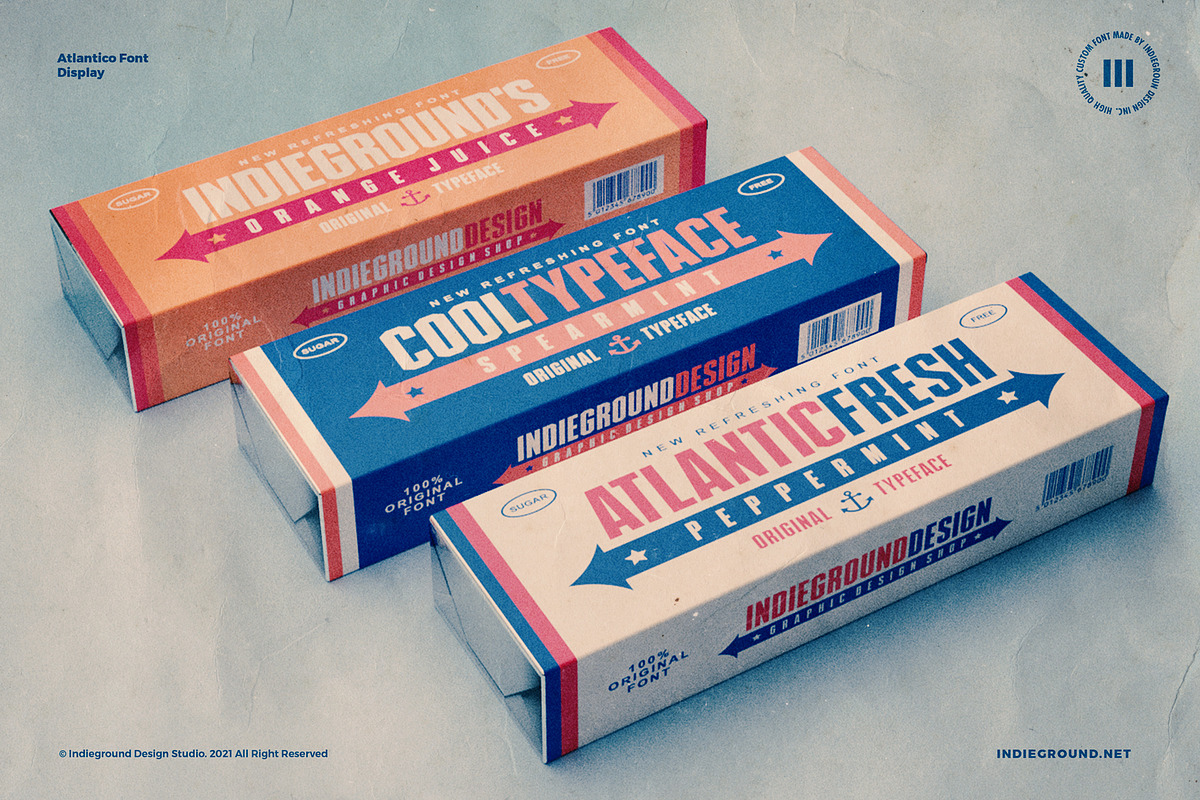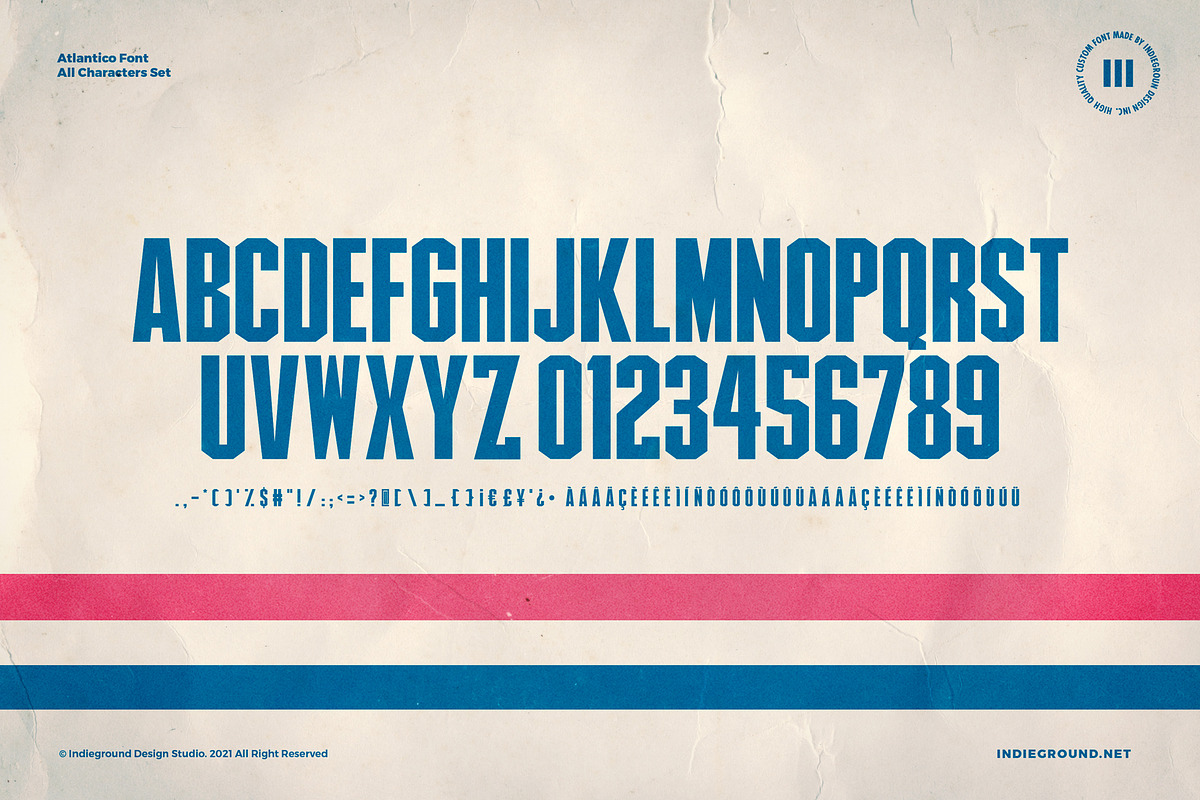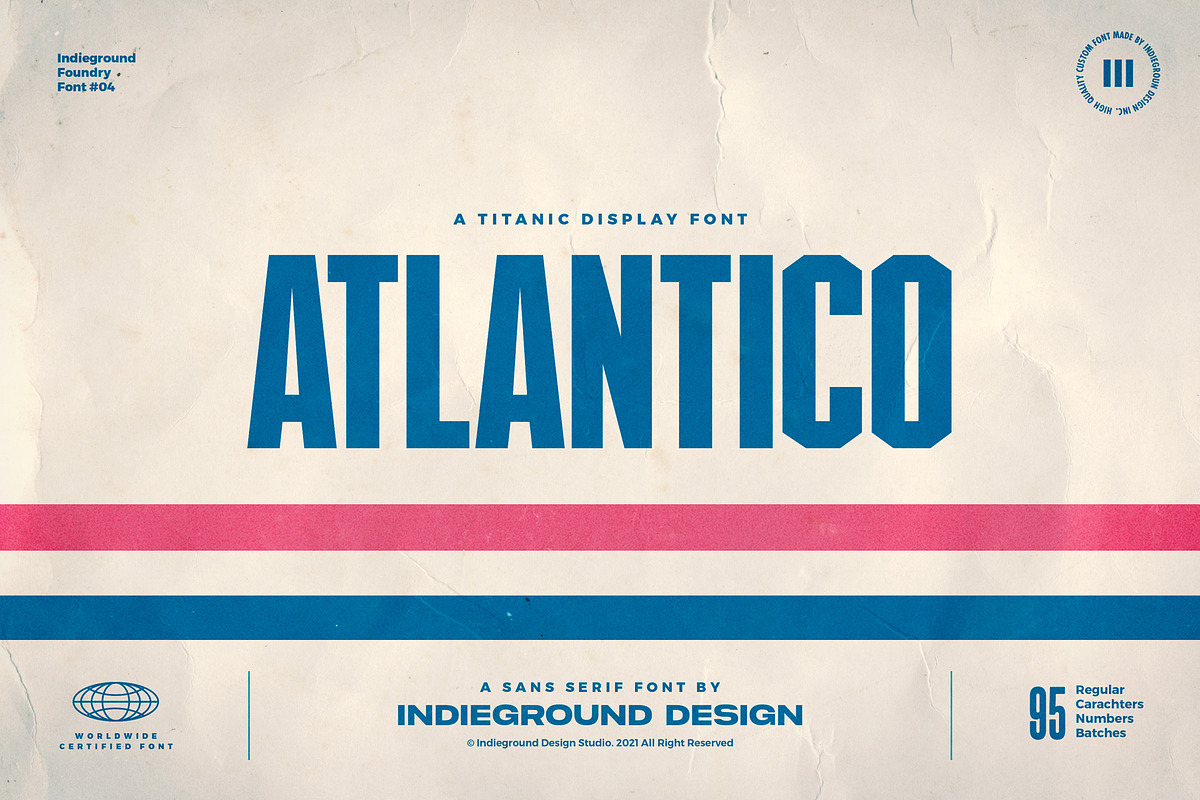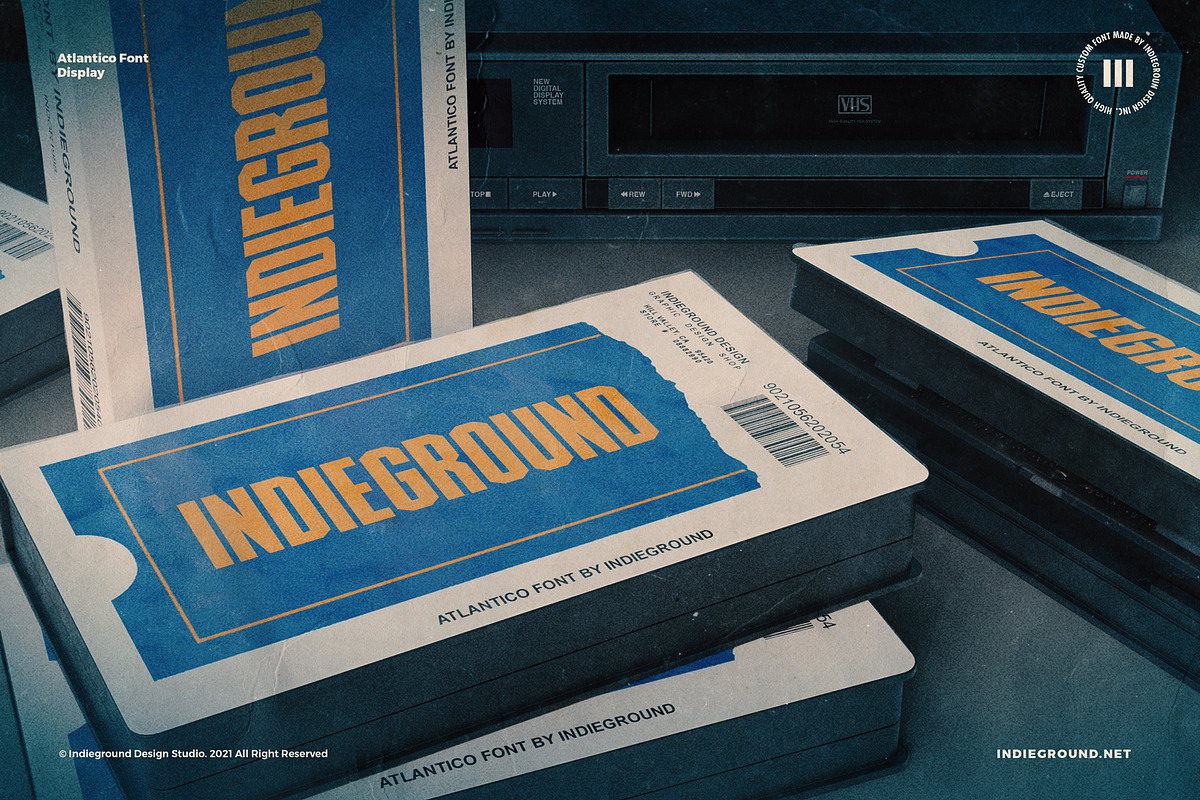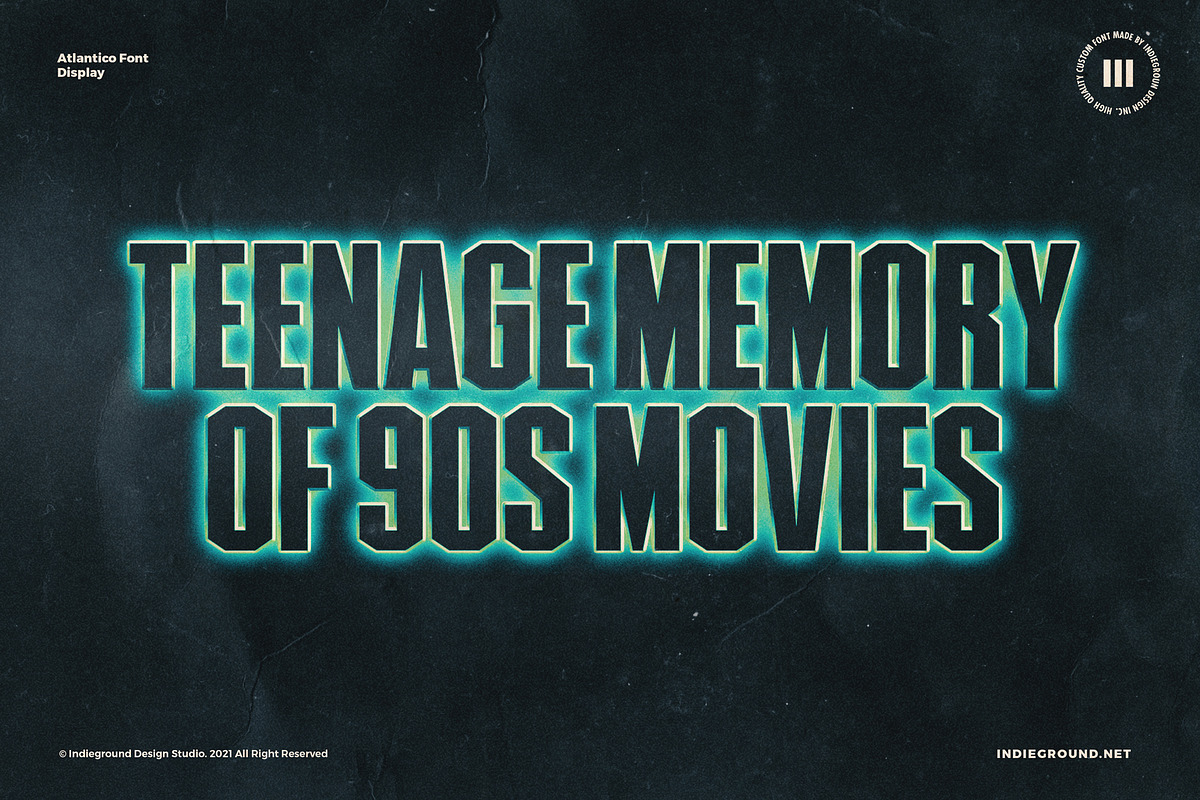
Atlantico Font
Atlantico Font by Indieground This display font made by the Indieground Team is perfect for your heavy titles. It gives an iconic style to the typography of your artworks, both retro and modern. This regular commercial version includes the full characters set shown in the preview.